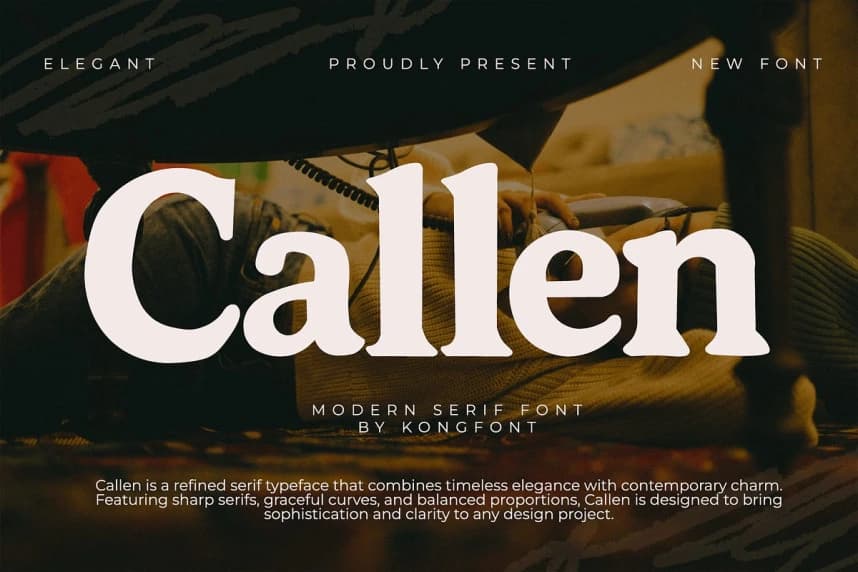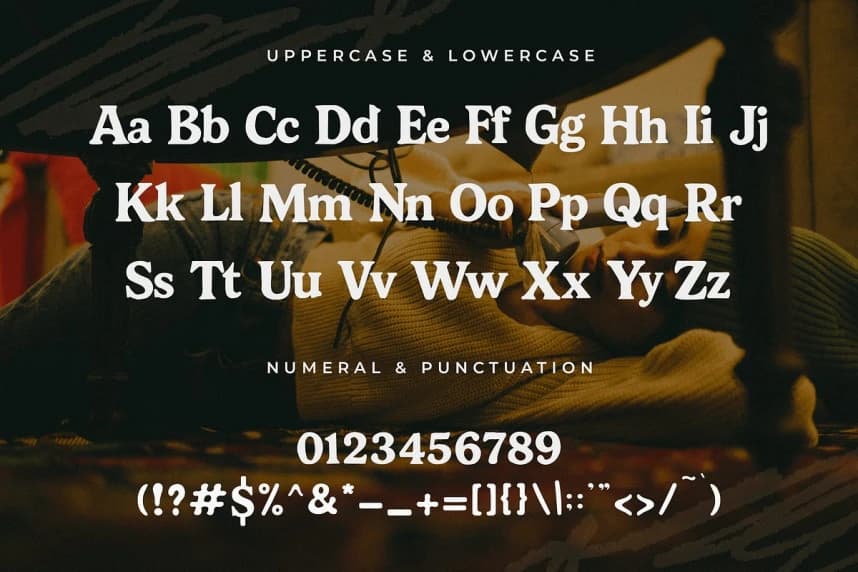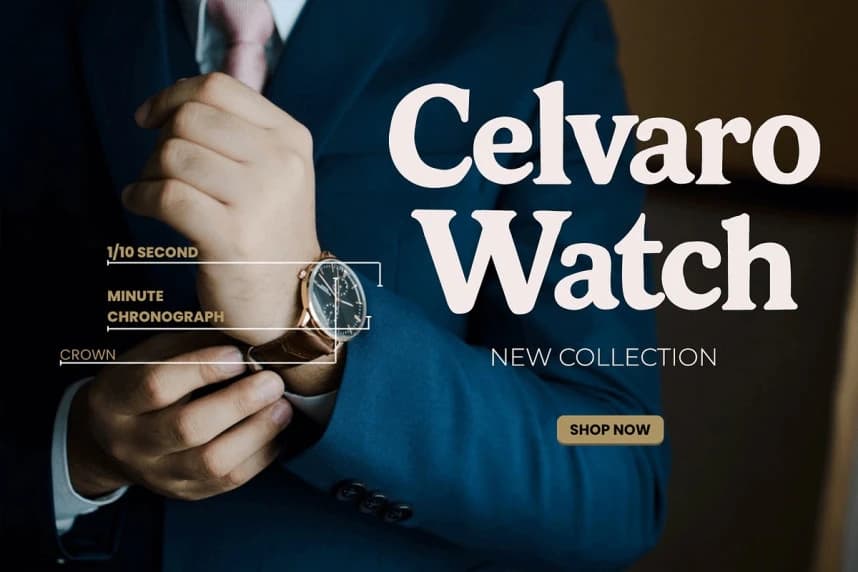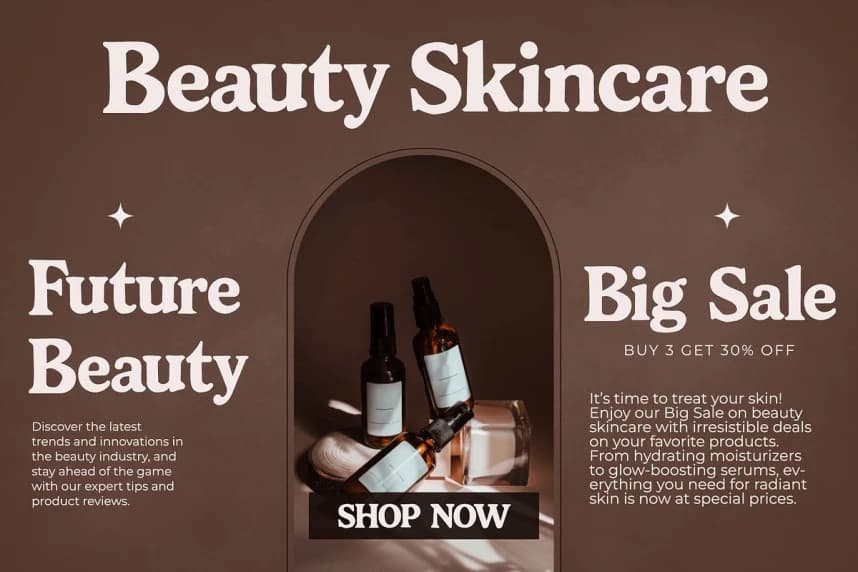
Callen Font
Callen Font, a modern serif font that blends classic sophistication with a clean, contemporary touch. Its refined letterforms and elegant proportions make it a versatile choice for designers who value both tradition and innovation in their typography.